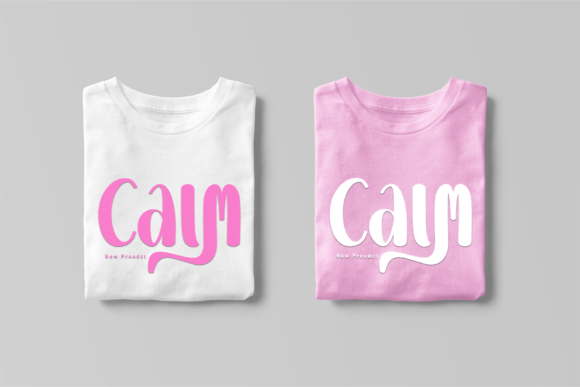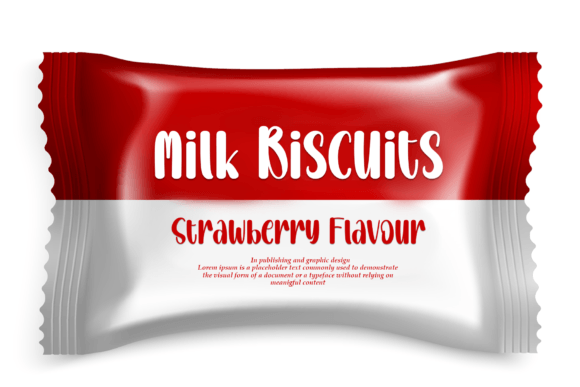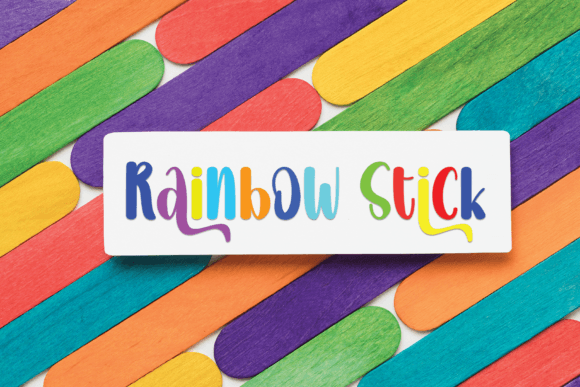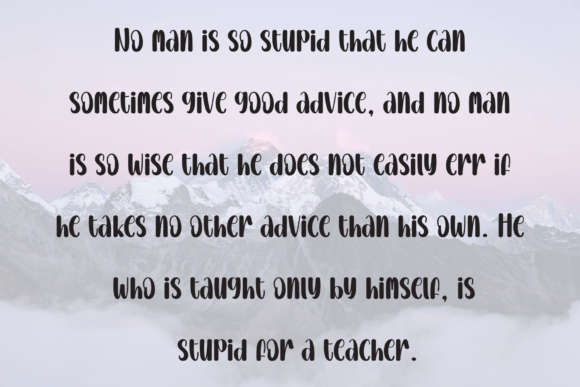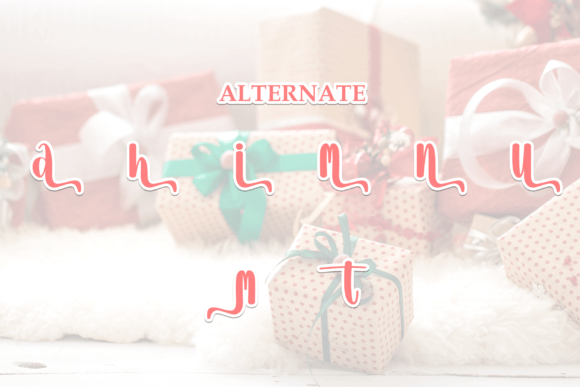
Introducing Gift Christmas Font: The Perfect Choice for Your Holiday Designs
Are you looking for a font that will add a touch of magic to your holiday designs? Look no further than Gift Christmas Font, a lovely and timeless handwritten font that’s perfect for creating eye-catching logos, branding, and quotes. With its unique and beautiful touch, Gift Christmas Font is sure to make your design come alive!
What Makes Gift Christmas Font So Special?
Gift Christmas Font is a carefully crafted handwritten font that exudes a sense of warmth and festivity. Every letter has a unique and beautiful touch, which sets it apart from other fonts. The font’s elegant and cursive style makes it perfect for creating sophisticated and eye-catching designs that will capture the attention of your audience.
Gift Christmas Font is a versatile font that’s perfect for designers and crafters alike. Whether you’re creating holiday-themed logos, branding, or quotes, this font is sure to add a touch of elegance and sophistication to your designs. Here are just a few ways you can use Gift Christmas Font:
- Create eye-catching logos and branding for your holiday-themed business or product
- Design beautiful and festive quotes to share on social media or use in your marketing materials
- Add a touch of elegance to your holiday craft projects, such as handmade cards, gift tags, or decorations
Key Features of Gift Christmas Font
Here are just a few key features that make Gift Christmas Font the perfect choice for your holiday designs:
- Unique and beautiful handwritten style
- Elegant and cursive font perfect for creating sophisticated designs
- Perfect for logos, branding, quotes, and more
- Versatile font that can be used for a variety of design projects
- Easy to read and understand, making it perfect for use in a variety of applications
Tips for Using Gift Christmas Font
Here are a few tips for using Gift Christmas Font in your designs:
- Use Gift Christmas Font as a headline font to add a touch of elegance and sophistication to your design
- Pair Gift Christmas Font with a simpler font to create a beautiful and contrasting design
- Use Gift Christmas Font to create a cohesive brand identity for your holiday-themed business or product
If you’re looking for a font that will add a touch of magic to your holiday designs, look no further than Gift Christmas Font. With its unique and beautiful handwritten style, Gift Christmas Font is the perfect choice for creating eye-catching logos, branding, and quotes. Whether you’re a designer or crafter, Gift Christmas Font is sure to make your design come alive!